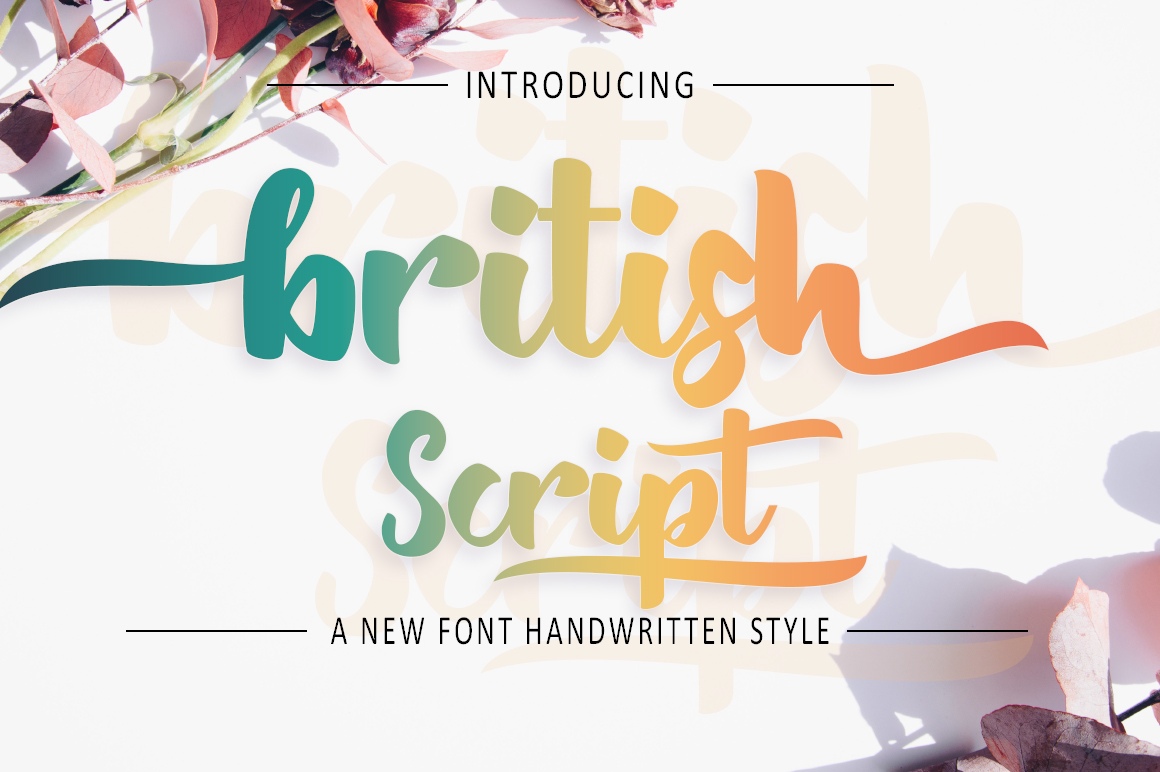
British Script Font
British Script Font is perfect for traditional English tea room branding, aristocratic event invitations, heritage luxury brands, royal-themed celebrations, elegant stationery designs, distinguished gentleman's club signage, classical literature publications, sophisticated hotel materials, vintage British tourism promotions, and refined cultural institution graphics.
What makes British Script Font so exciting is its extraordinary ability to embody the refined elegance and distinguished heritage of British aristocratic penmanship through flowing script letterforms that seem to carry centuries of cultural sophistication and royal tradition. This distinguished typeface captures the essence of British refinement and aristocratic grace with characters that radiate the timeless elegance, cultural authority, and sophisticated charm that define authentic British upper-class traditions. The font's regal design elements perfectly balance historical authenticity with contemporary luxury appeal, creating an indispensable tool that communicates British heritage, aristocratic sophistication, and cultural distinction, making it essential for brands and projects celebrating the enduring elegance of British culture and royal traditions.
British Script Font comes in multiple font families including Regular, Bold, Light, Italic, Bold Italic, Royal, Aristocratic, and Distinguished variations. Each family member maintains the core British characteristics while offering different sophistication levels and stylistic approaches to suit various heritage and luxury design requirements.
The British Script Font Free Download offers designers an incredible opportunity to incorporate authentic British aristocratic elegance into projects that demand the highest levels of cultural sophistication and heritage appeal. This remarkable typeface distinguishes itself through its unique ability to communicate themes of British heritage, royal sophistication, and aristocratic refinement. Whether you're developing luxury British brands, creating heritage celebration materials, or designing distinguished cultural events, this font ensures your message radiates the refined elegance and cultural authority that audiences associate with authentic British aristocratic traditions and royal sophistication.
The aristocratic precision in British Script Font makes it particularly effective for luxury hospitality and heritage organizations where conveying authentic British sophistication and royal heritage is crucial for connecting with discerning clientele who appreciate genuine cultural refinement and aristocratic quality. Its elegant letterforms work beautifully across both traditional and contemporary applications, from formal invitations to luxury brand communications, maintaining consistent royal appeal and British authenticity.
Heritage luxury professionals recognize how British Script Font transforms ordinary communications into distinguished expressions of British cultural excellence and aristocratic refinement. The typeface's royal character set includes special British symbols, aristocratic decorative elements, and heritage features that enhance the overall British sophistication atmosphere of any culturally-focused project.
For creative professionals serving luxury British brands, heritage tourism, and distinguished cultural institutions, British Script Font serves as the perfect foundation for establishing memorable visual identities that capture the essential qualities of British elegance, royal sophistication, and aristocratic heritage that define successful brands celebrating the timeless refinement and cultural distinction of authentic British aristocratic traditions.